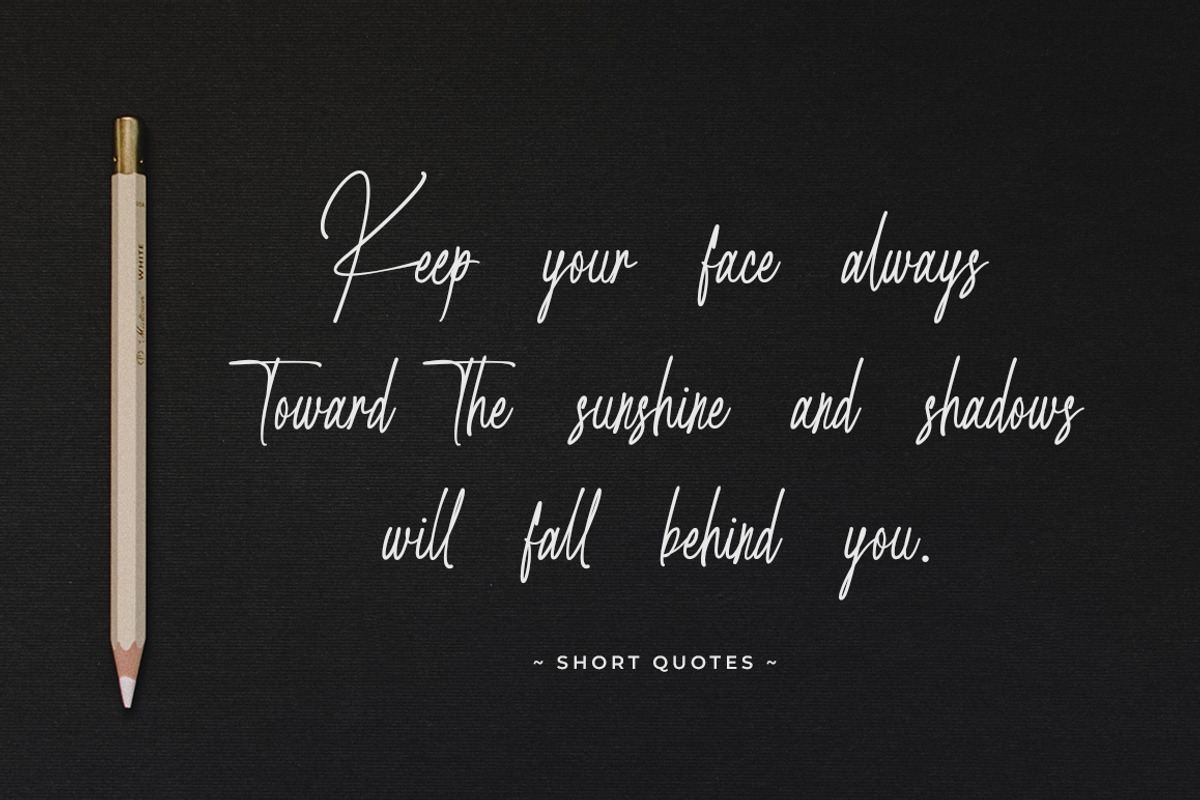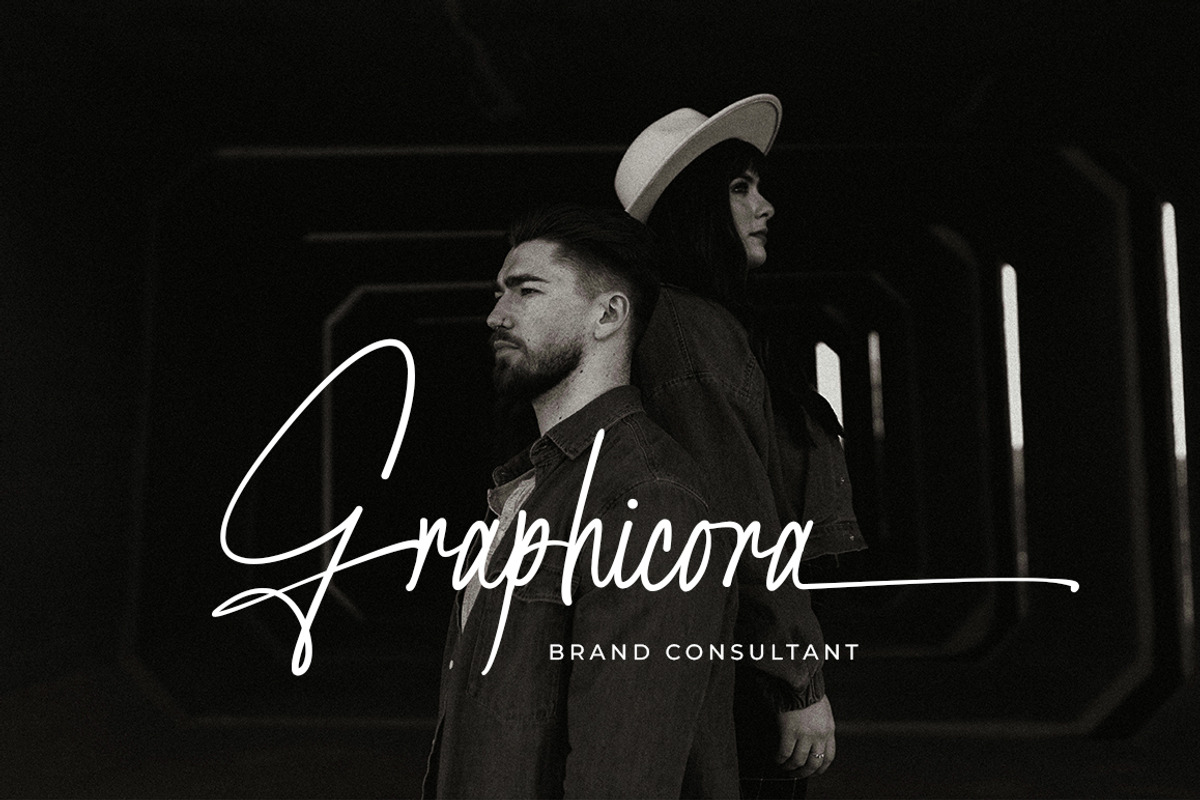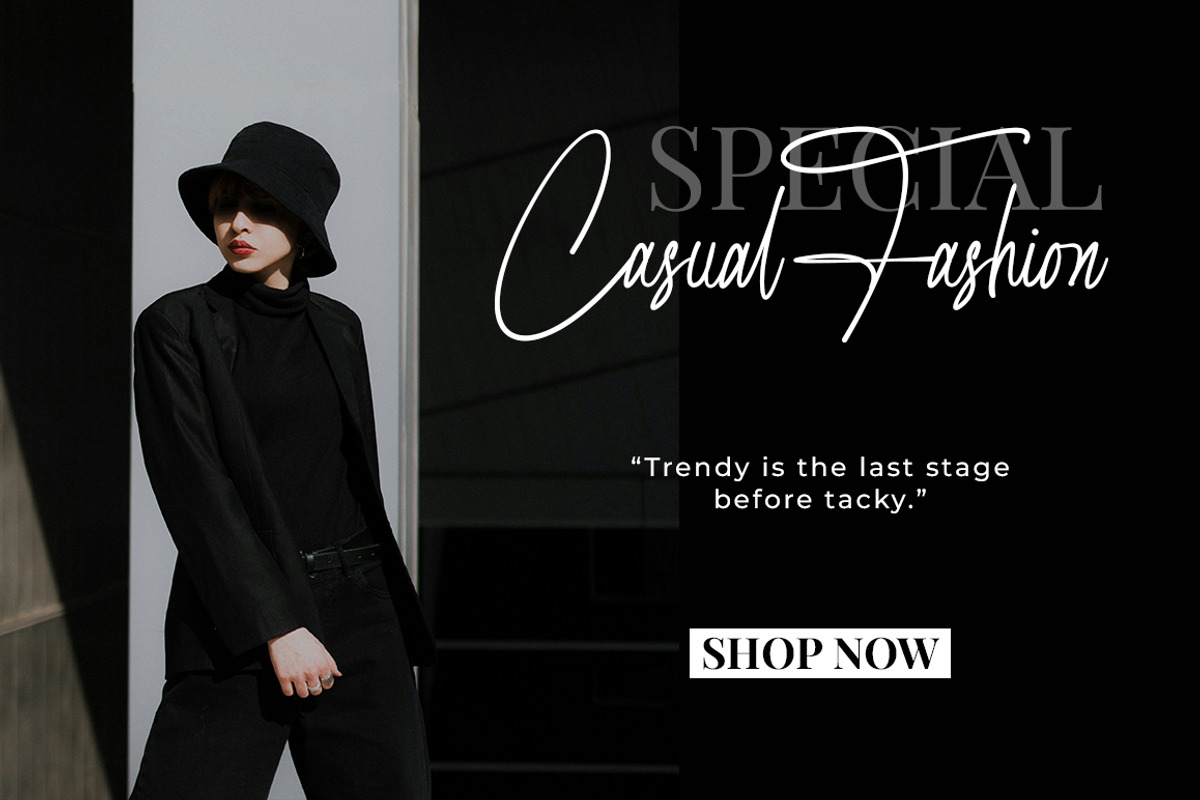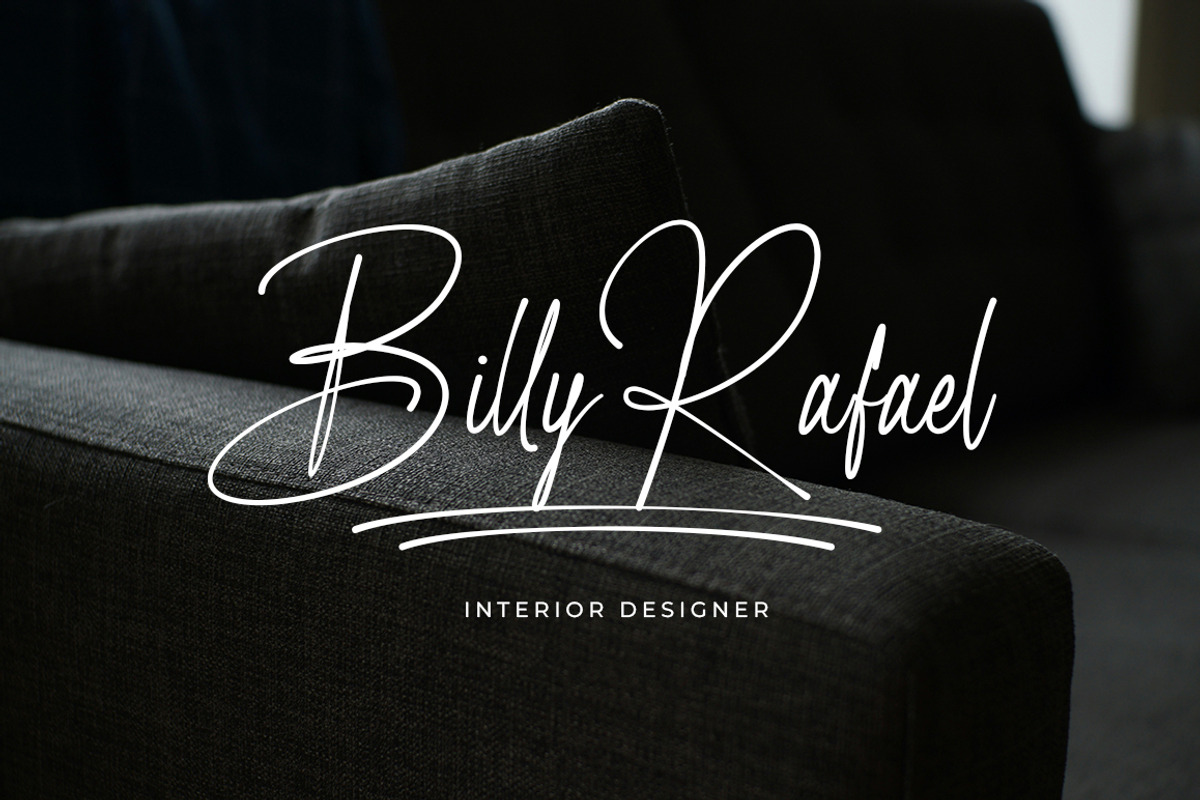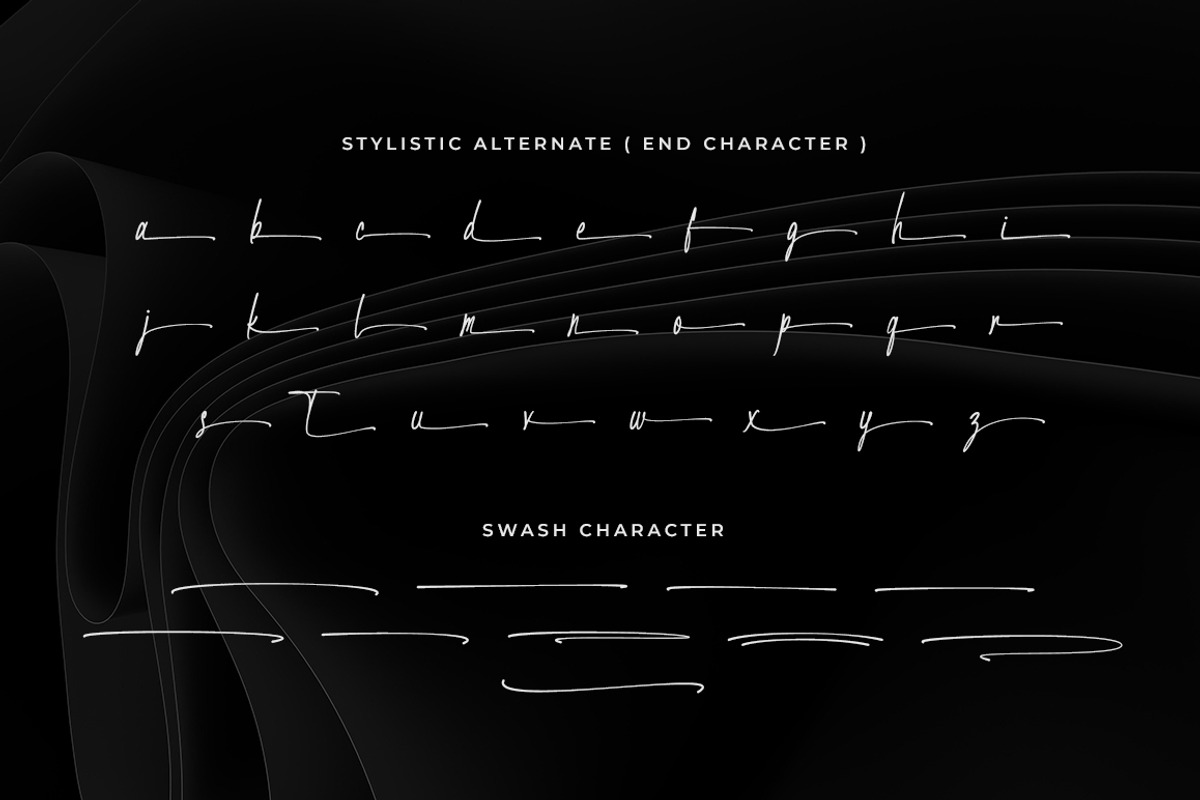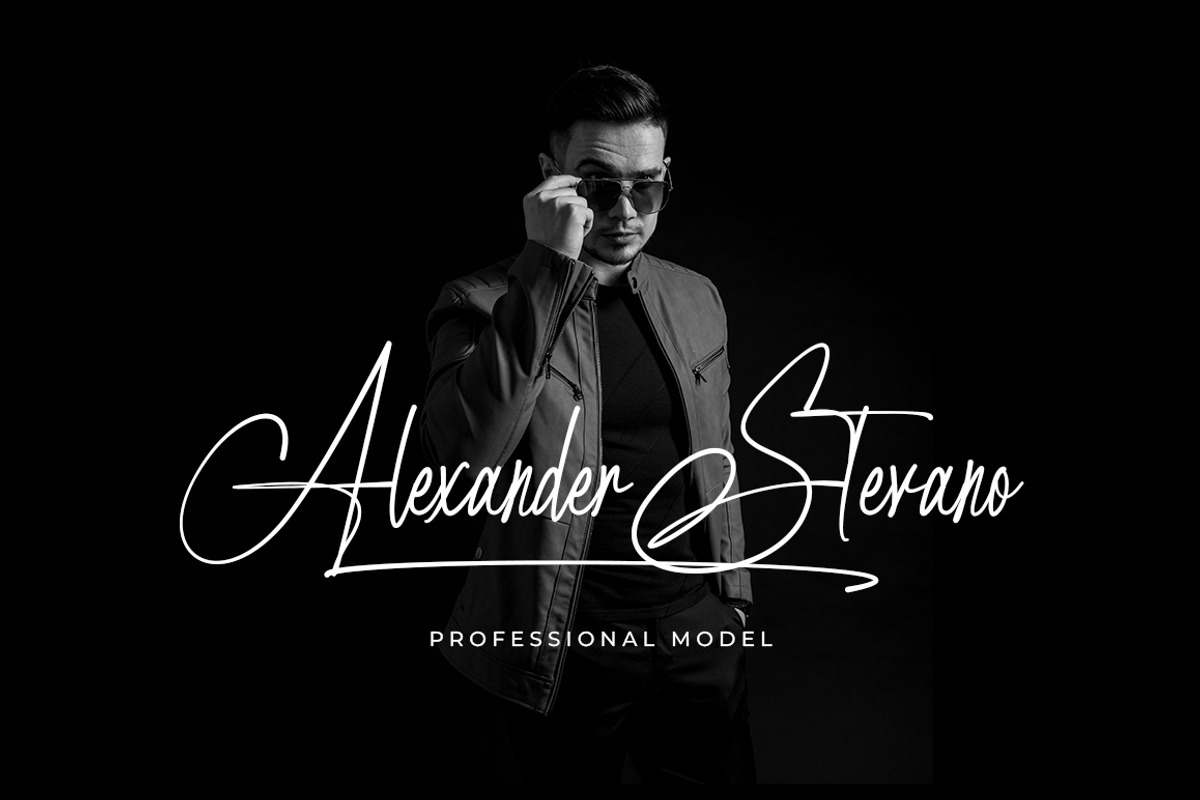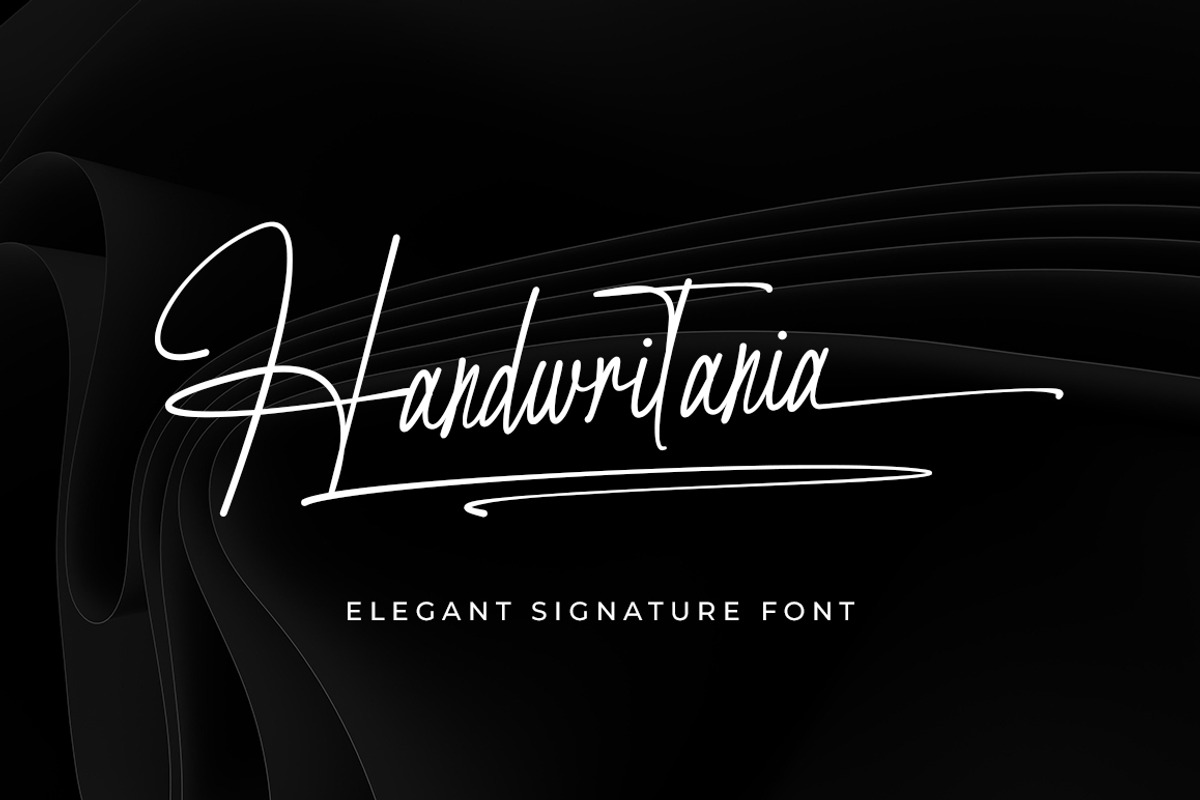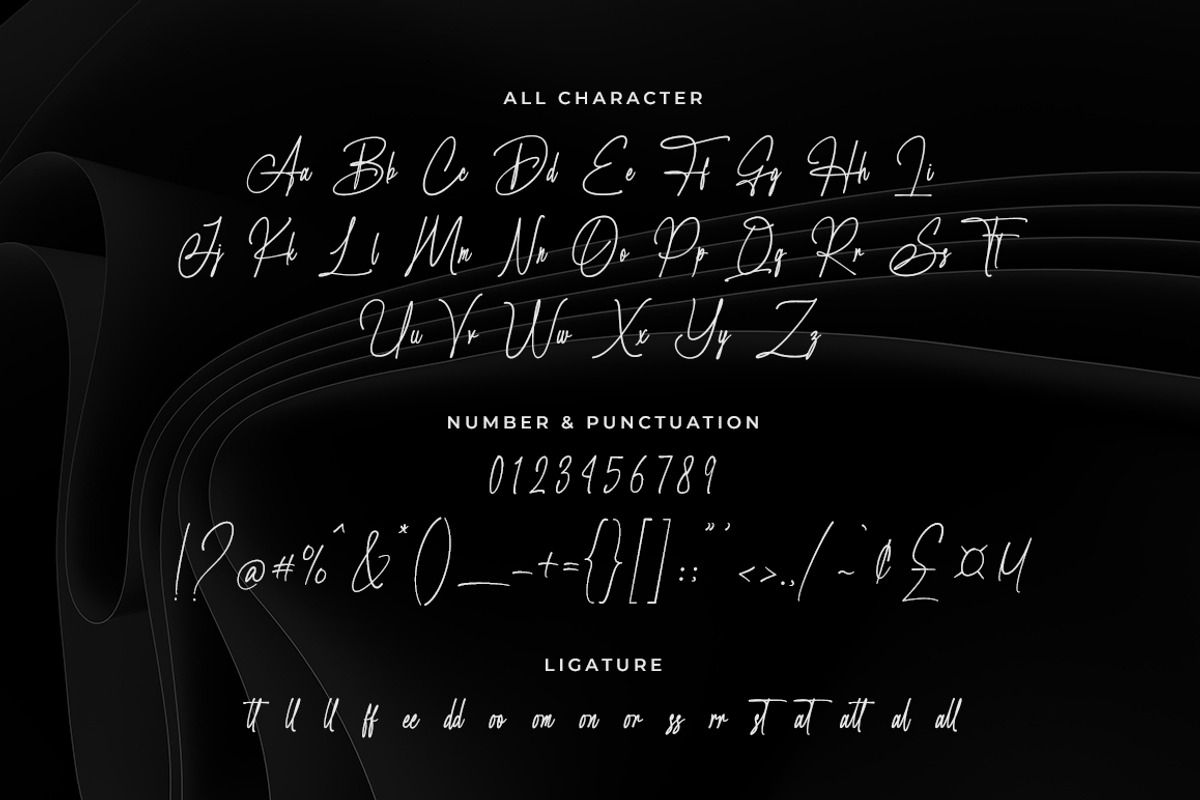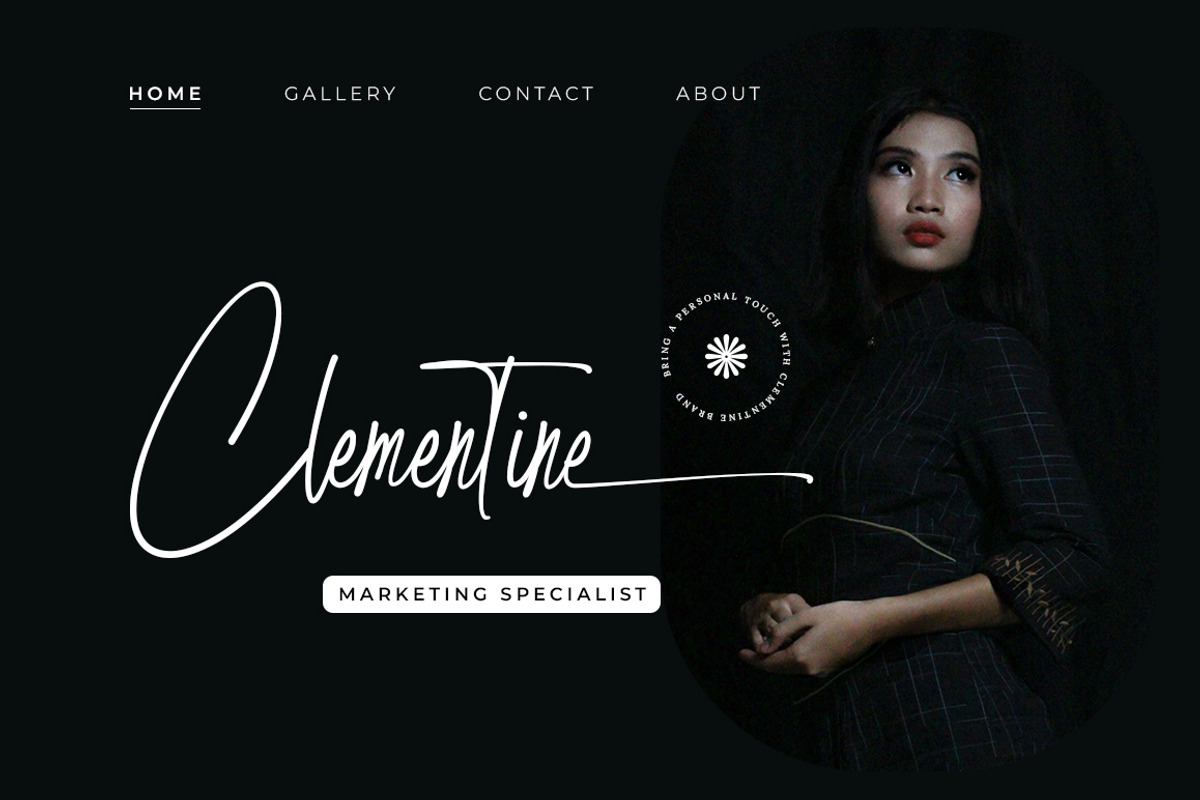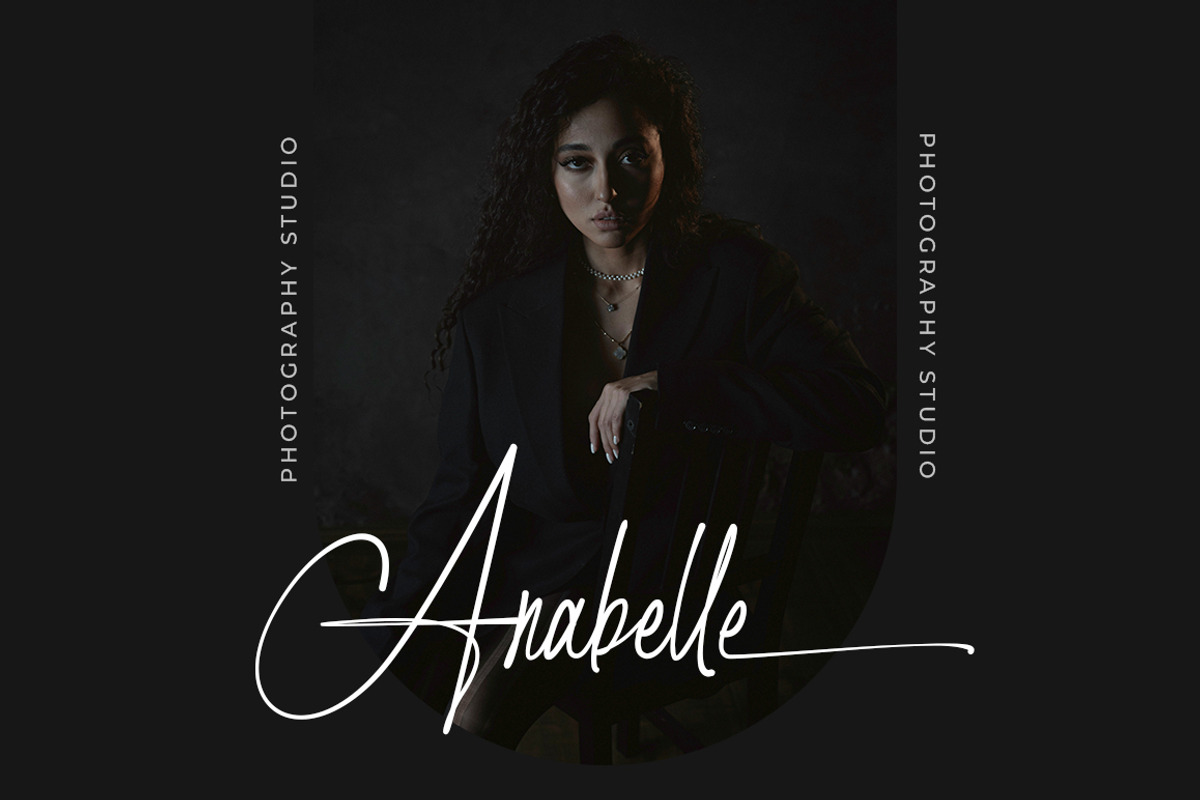
Handwritania - Elegant Signature
Introducing Handwritania - A Graceful Signature Font for Elegant Branding.
Handwritania is a stylish signature font designed with smooth, flowing strokes and timeless elegance. Perfectly capturing the beauty of handwritten signatures, this font brings a personal and luxurious touch to every design. Ideal for logos, wedding invitations, business cards, packaging, social media, and high-end branding.
With its natural curves and sophisticated charm, Handwritania is the perfect choice for designers seeking a modern signature font with classic elegance. Every letter is carefully crafted to create beautiful, balanced typography that elevates your brand identity.
- Ligature Set
- Swash Character
- Stylistic Alternate
- Support Multilingual Languange